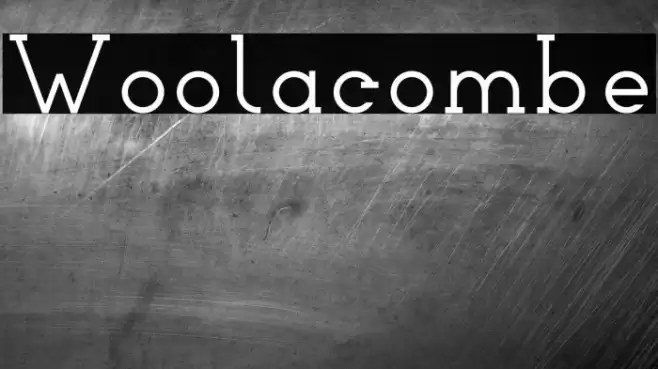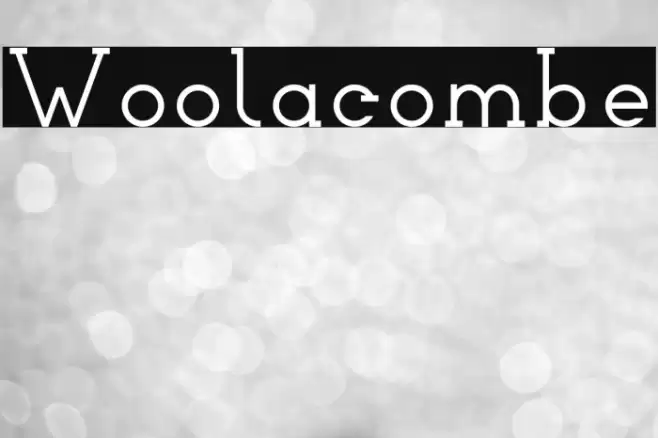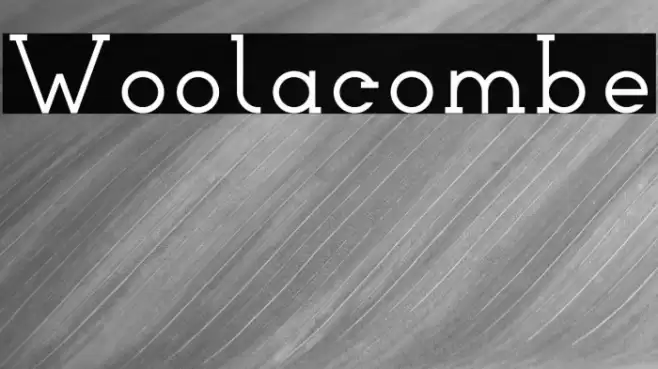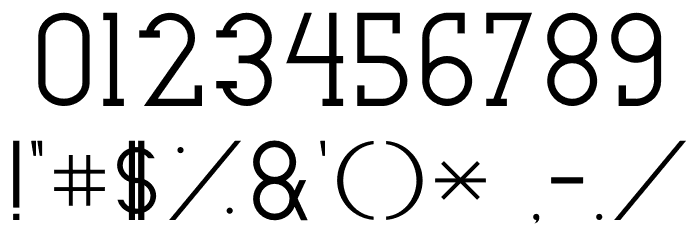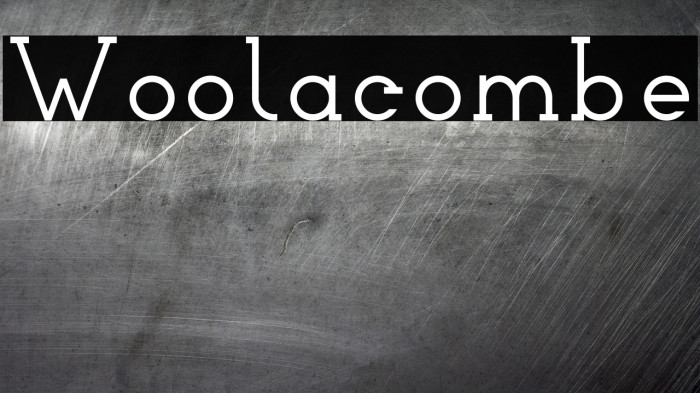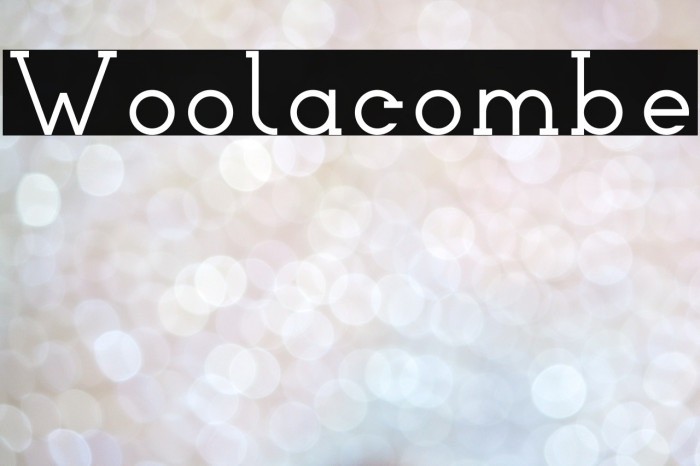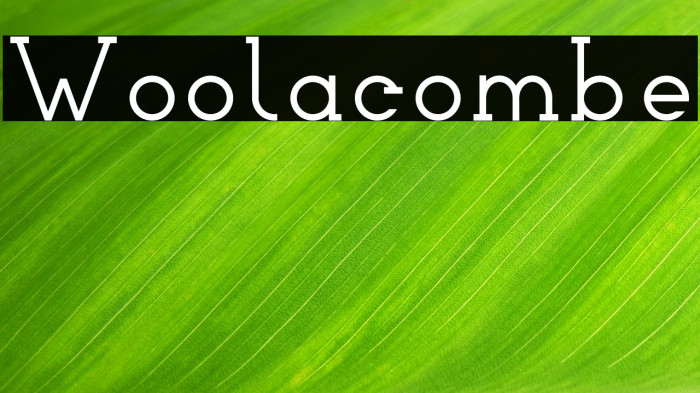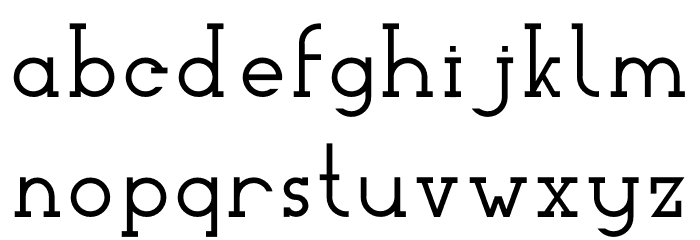
Woolacombe Font
Woolacombe Description
This font features a unique blend of classic and modern elements, characterized by its clean lines and geometric shapes. The uppercase letters are bold and structured, with a slight vintage flair, while the lowercase letters maintain a more rounded and approachable appearance. The numerals are distinct and easy to read, making them suitable for various applications. Special characters are thoughtfully designed, adding to the font's versatility. Overall, the font exudes a sense of elegance and sophistication, making it ideal for both formal and creative projects.
A modern serif font with geometric shapes and a vintage touch from Uncategorized fonts.
- Proposed Projects: Ideal for branding, editorial design, packaging, and web design projects.